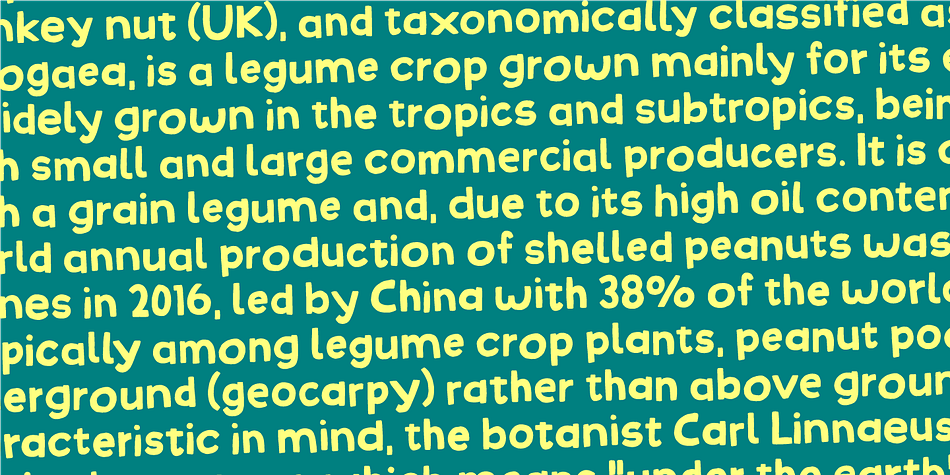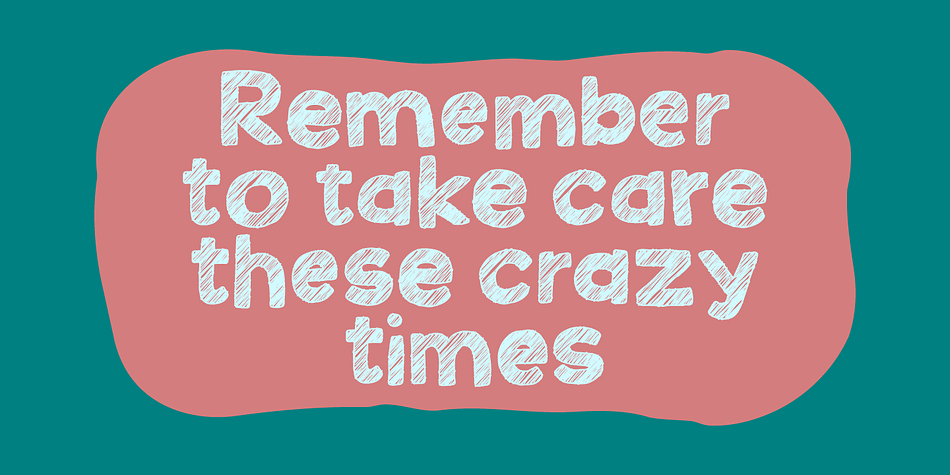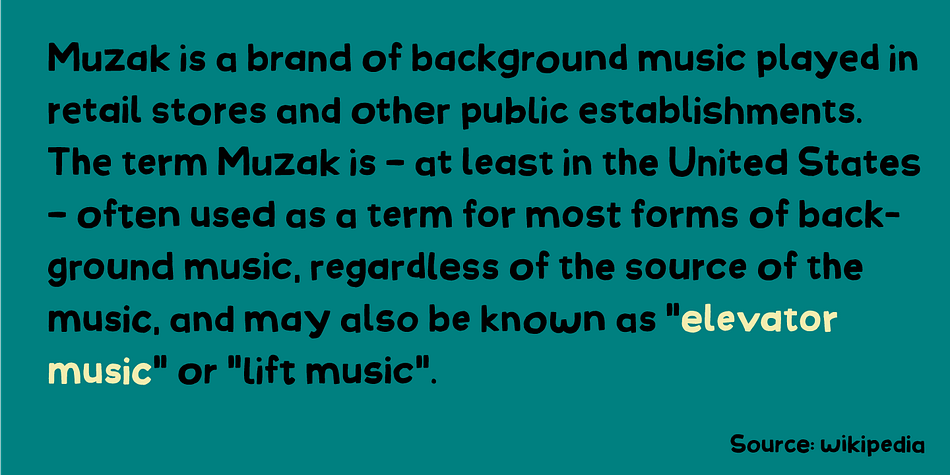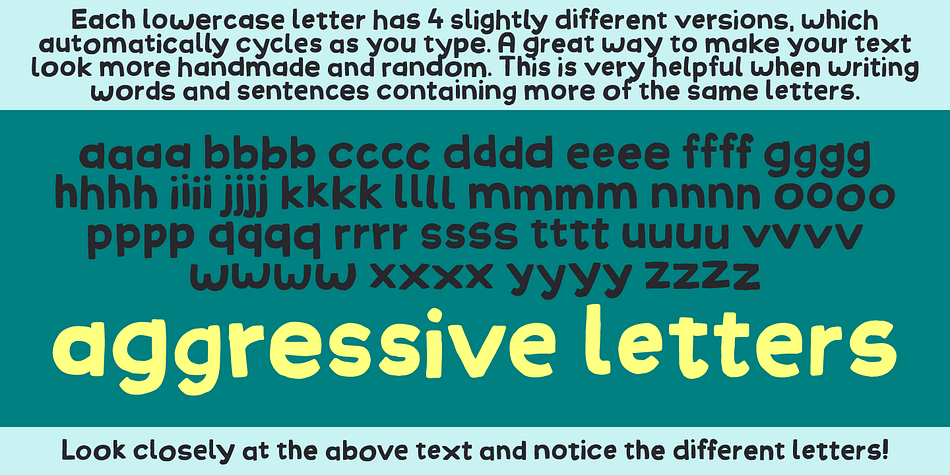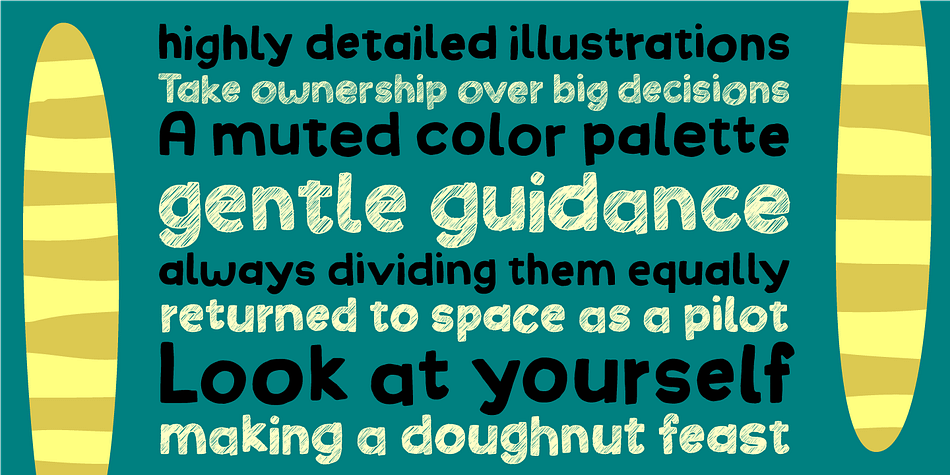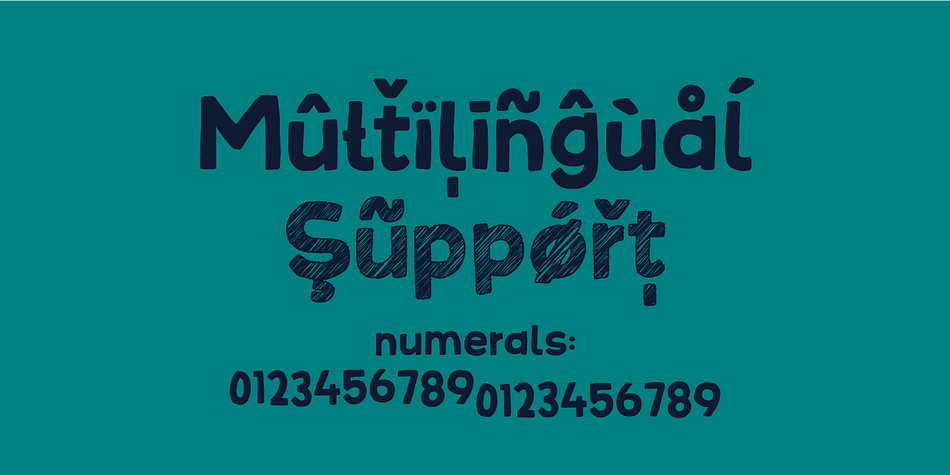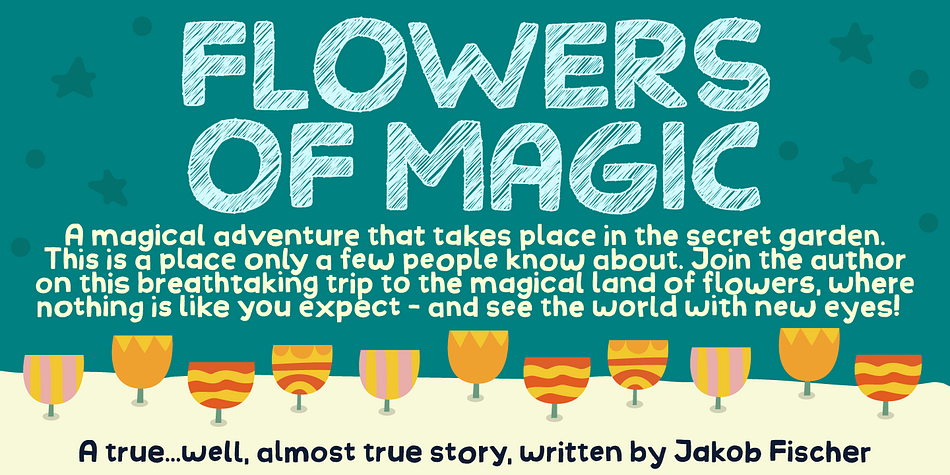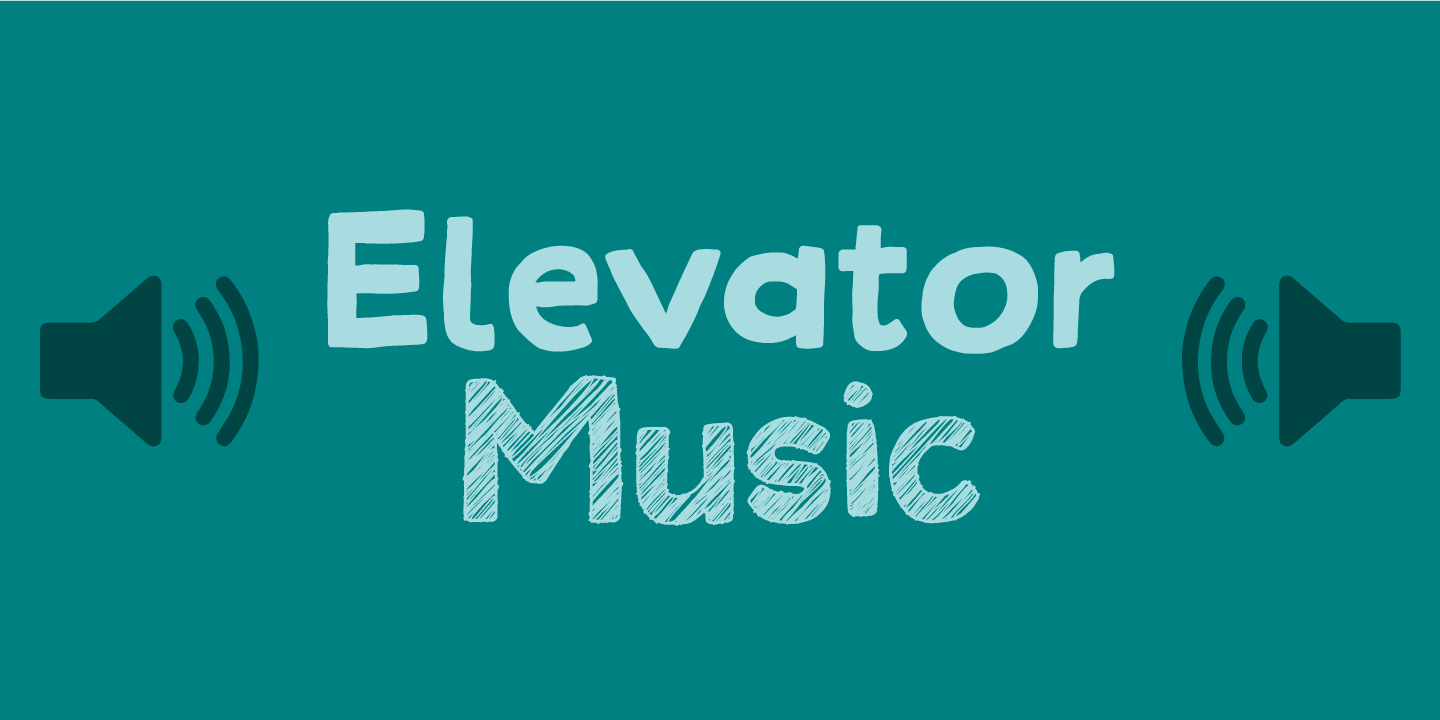
Elevator Music
Designed by Jakob Fischer, Elevator Music is a hand display and hand drawn font family. This typeface has two styles and was published by Pizzadude.dk.
When was the last time you listened to elevator music and found yourself humming along? And perhaps the tune you were listening to, got stuck in your ears for the rest of the day…the rest of the week?
That’s often what happens with elevator music: maybe you don’t notice it - but it is there, and it could most likely be one of your all time favourites! :)
My Elevator Music font does somewhat the same: it’s nice and pretty harmless - but it works, perhaps even without you noticing! :)
I’ve added 4 slightly different versions of each lowercase letter - and that goes for both Regular and Scratch versions. And they both have multilingual support, because elevator music is universal!